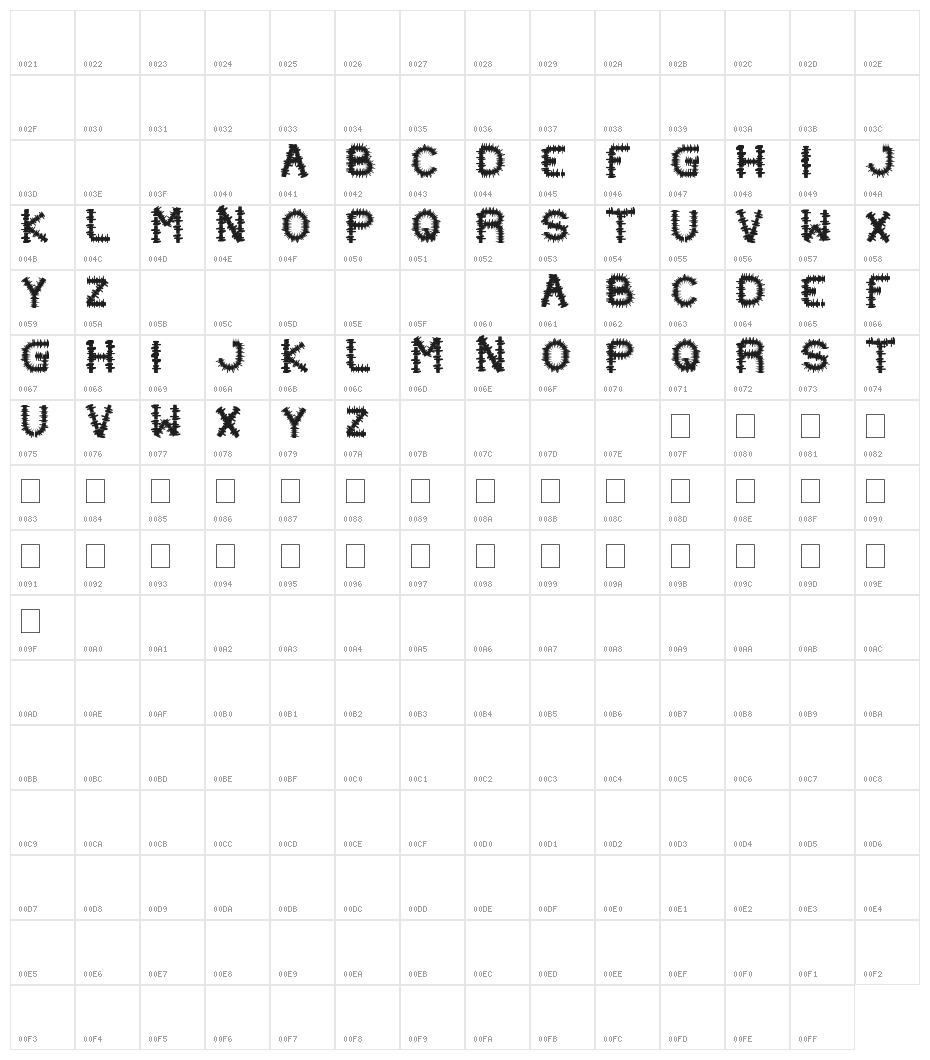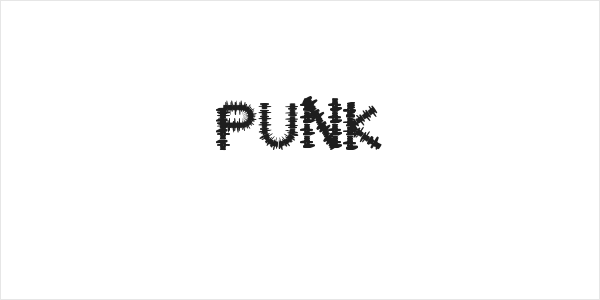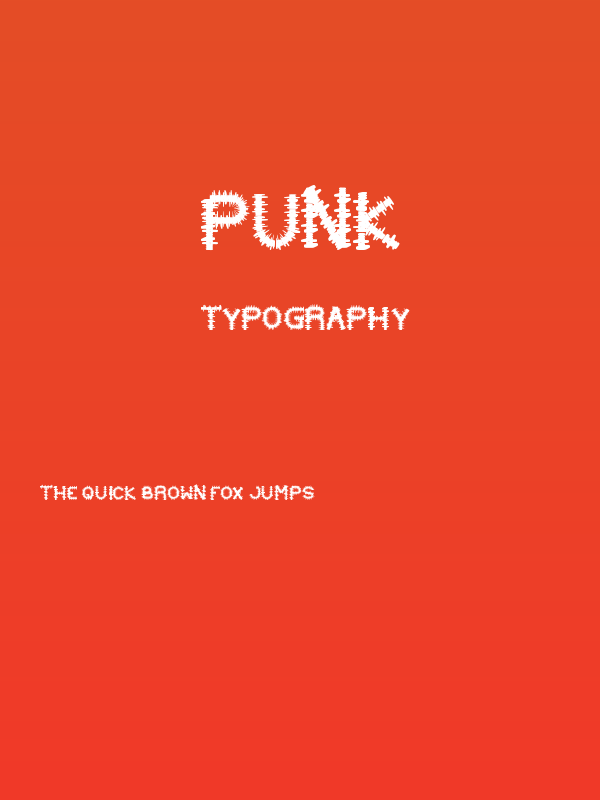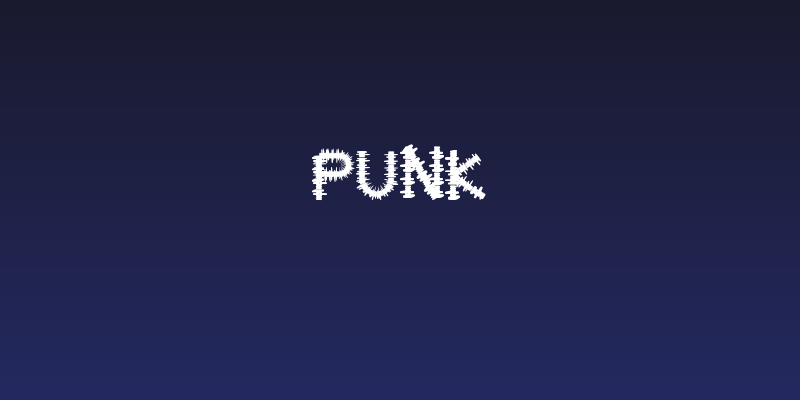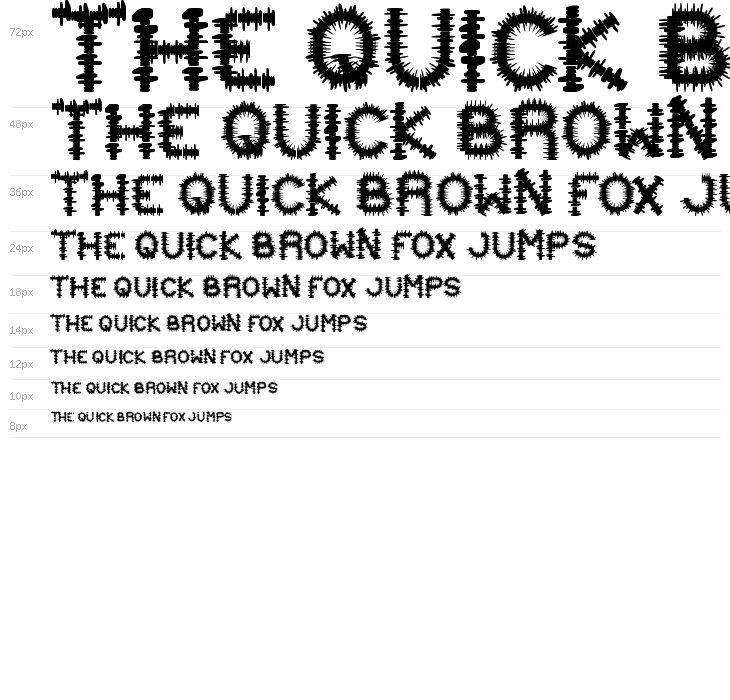
PUNK Font
| 整体风格 | Punk, Energetic, Rebellious |
| 推荐项目 | Ideal for music posters, album covers, zines, and any project seeking a rebellious, energetic aesthetic. |